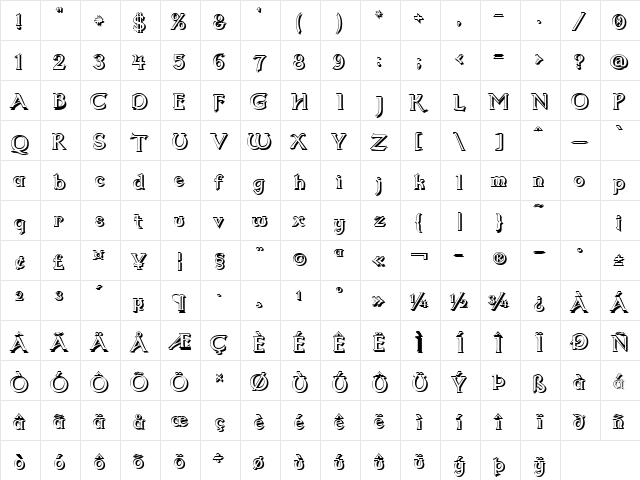
Dumbledor 2 Shadow Regular
Design Context for Dumbledor 2 Shadow Typeface
Dumbledor 2 Shadow brings ornamental detail and strong personality to headlines and identities, where visual impact matters more than quiet functionality.
Font Pairing: Pair with a clean neutral sans-serif for body copy to let Dumbledor 2 Shadow's character lead without overwhelming the composition.
Pro Tip: Use Dumbledor 2 Shadow exclusively at display sizes — it was designed to be seen, not read at length. Let a neutral companion handle body copy.